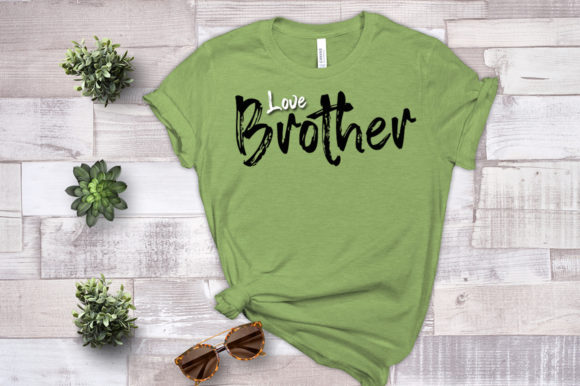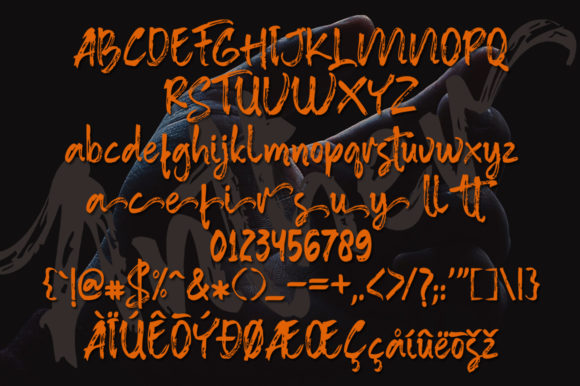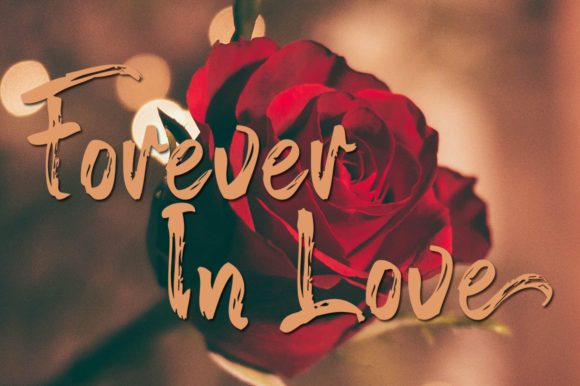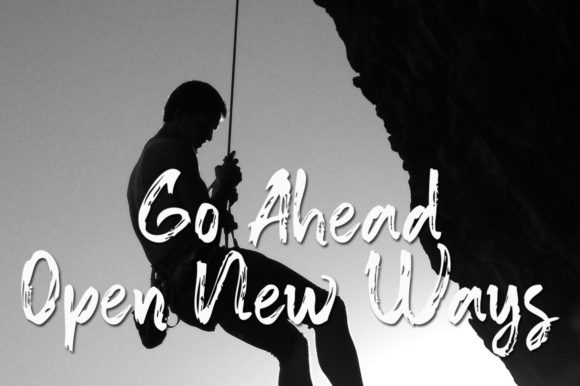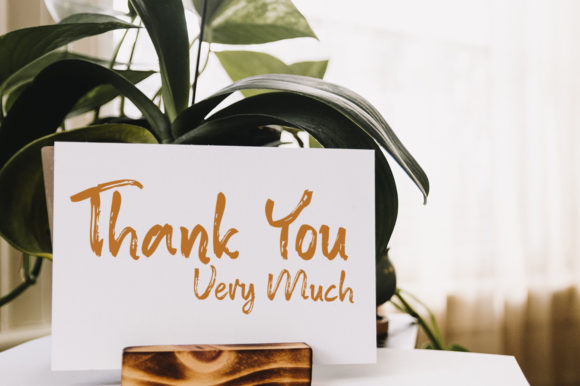
The Anther Brush Font: A Contemporary Approach to Design
I’ll never forget the design moment that led me to discover the Anther Brush font. I was working on a project for a client who wanted a modern, yet authentic look for their branding. I had spent hours scouring the internet for the perfect font, but nothing seemed quite right. That was until I stumbled upon Anther Brush. Its textured, brush-like quality immediately caught my eye, and I knew I had found what I was looking for.
- ✨ Unique texture: The textured brush effect gives Anther Brush a distinctive, hand-crafted feel that’s perfect for designs that require a personal touch.
- ✅ Contemporary approach: Anther Brush’s modern design makes it suitable for a wide range of projects, from branding and packaging to digital media and advertising.
- 🎨 Versatile: With its wide range of OpenType features and glyphs, Anther Brush can be used to create a variety of different looks and styles.
Of course, no font is perfect, and Anther Brush is no exception. Here are a few small quirks to keep in mind:
- 🤔 Limited use in small sizes: Due to its textured nature, Anther Brush can become a bit blurry or lost when used in very small sizes.
- ⚠️ Some glyphs may require manual adjustment: While Anther Brush has a wide range of OpenType features, some glyphs may require manual adjustment to get the desired look.
So, what’s the story behind Anther Brush? While the font’s creator may not have a publicly available backstory, it’s easy to imagine that they were inspired by the world of modern art and design. Perhaps they wanted to create a font that captured the essence of contemporary brush script, with all its imperfections and quirks.
| Font Name | Anther Brush Font |
| Author | akifatype |
| What is Anther Brush? | Anther Brush is a textured brush font featuring a contemporary approach to design. |
| What kind of projects is Anther Brush suitable for? | Anther Brush is perfect for designs that require a modern, yet authentic look, such as branding, packaging, digital media, and advertising. |
| Is Anther Brush easy to use? | Yes, Anther Brush is relatively easy to use, especially for designers familiar with OpenType features and glyphs. However, some users may need to experiment with the font to get the desired look. |